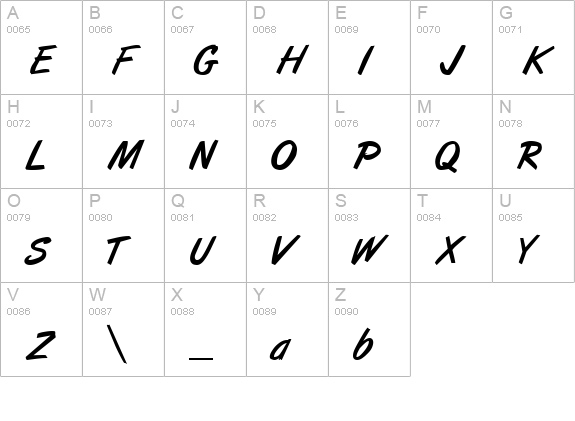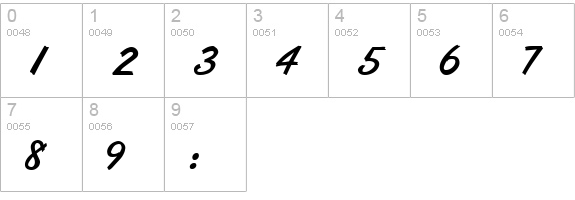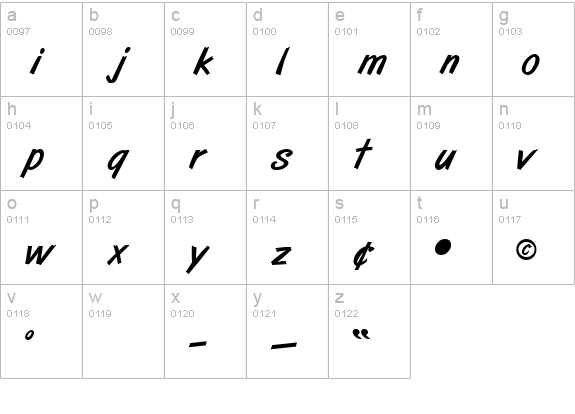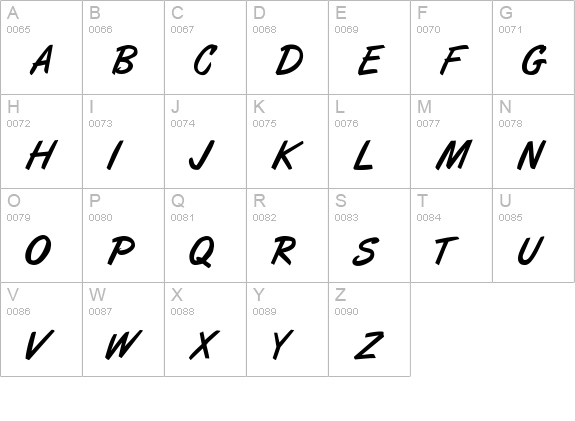
ArtBrush Font Details
ArtBrush is a beautifully crafted and versatile font that exudes creativity and elegance. With its hand-drawn brush strokes and unique flair, ArtBrush is perfect for adding a touch of artistic charm to your designs. Whether you're working on a logo, a poster, a greeting card, or any other project, ArtBrush will bring a sense of sophistication and style. The best part? ArtBrush is completely free! You can easily download this stunning font at FontsMarket.com and start using it in your projects right away. Don't miss out on the opportunity to enhance your designs with the beauty of ArtBrush - download it now and let your creativity soar!